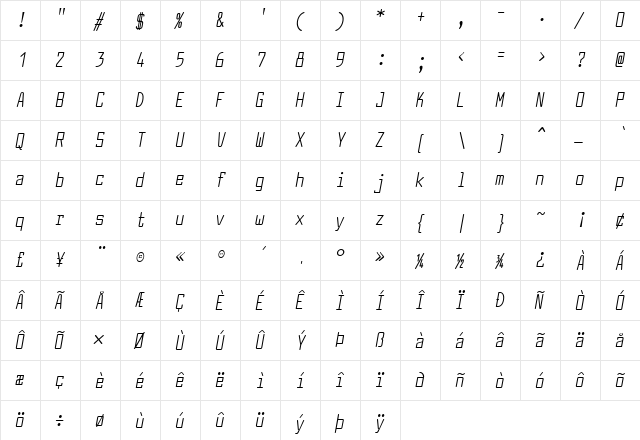
Larabiefont Compressed Italic
Design Context for Larabiefont Compressed Typeface
Larabiefont Compressed takes a measured approach to typography — its balanced proportions and neutral character make it a reliable workhorse for both digital and print work. Its italic angle brings a sense of urgency and motion to the letterforms.
Pro Tip: Try Larabiefont Compressed for annotation and caption copy alongside an upright companion — the contrast in angle creates a dynamic but ordered typographic system.